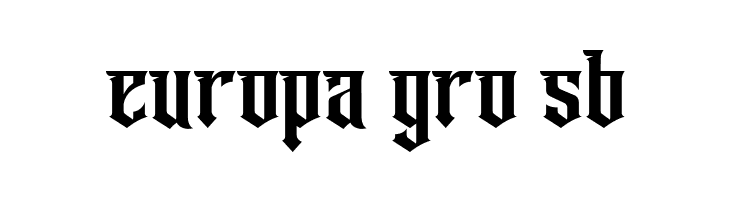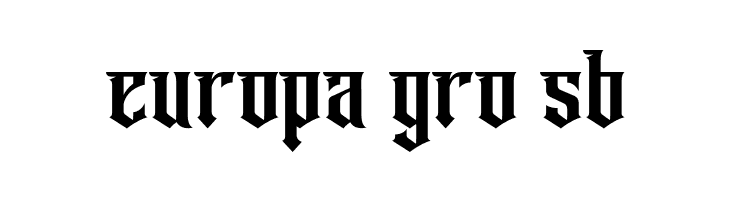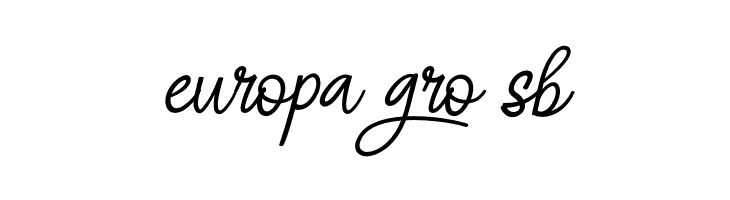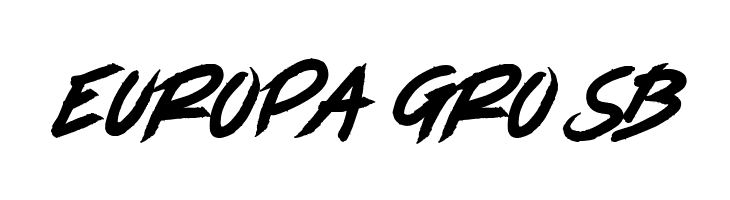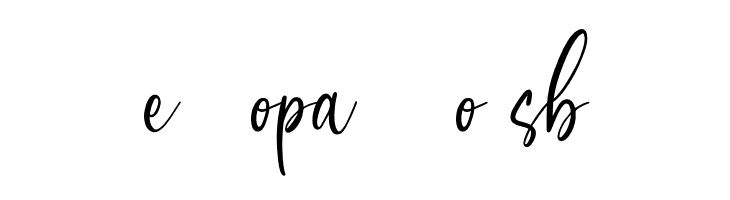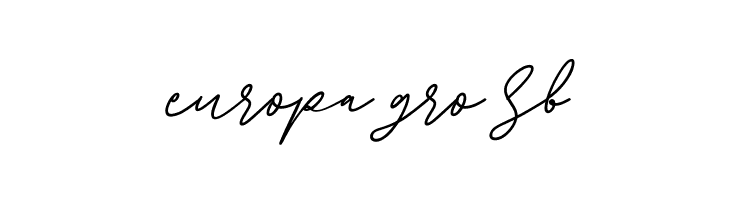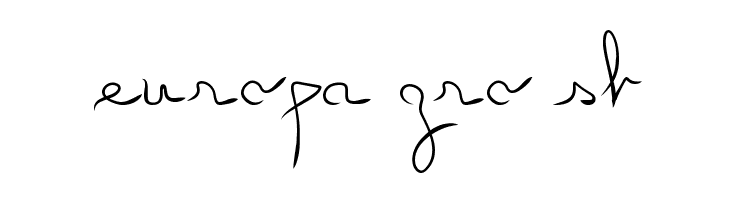
• ANGEL FIRE
A bold, dynamic script font with brush-like strokes and a handwritten style.
• Angel Light
An elegant, flowing script font with smooth, continuous strokes.
• Angel Love
A romantic and elegant script font with flowing, cursive letters.
• Angel rhapsody Regular
A bold, Gothic-style font with intricate details and a dramatic flair.
• Angel rhapsody Regular
A bold blackletter font with intricate, angular designs and decorative elements.
• Angel Rise Free Regular
A flowing, cursive font with an elegant, handwritten style.
• Angel Signature
A cursive, handwritten-style font with elegant, flowing characters.
• Angel Signature
A sophisticated, elegant handwritten script with flowing, interconnected letters.
• Angel Signature Italic
A graceful and fluid script font with elegant, flowing lines.
• Angel Signature Italic
An elegant, cursive script font with a handwritten signature style.